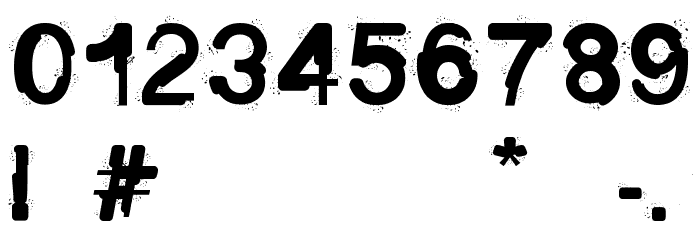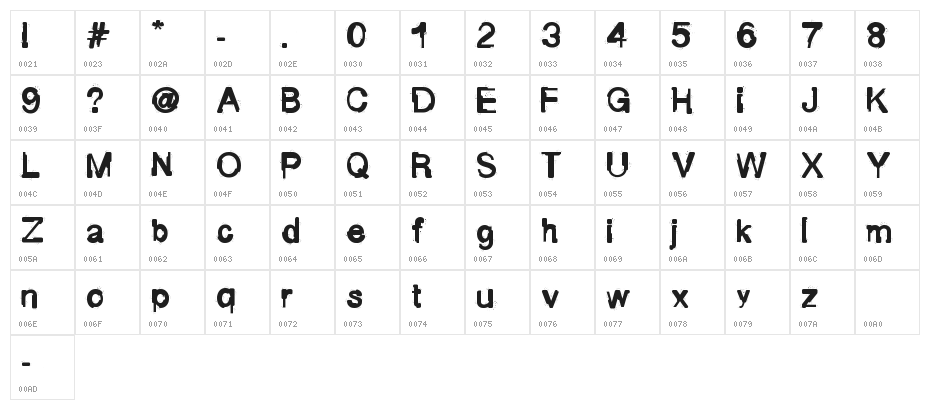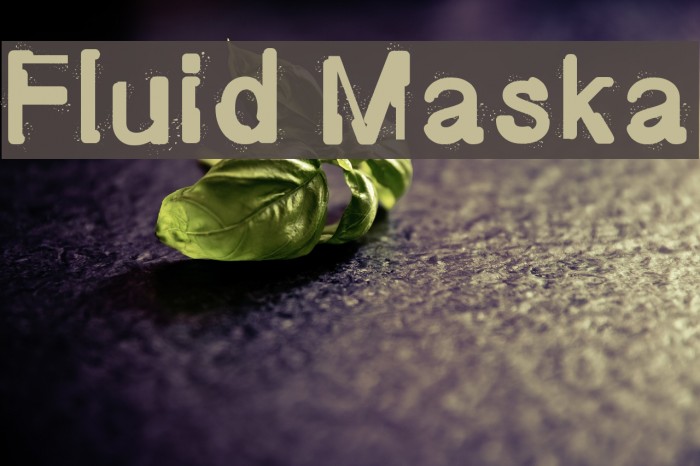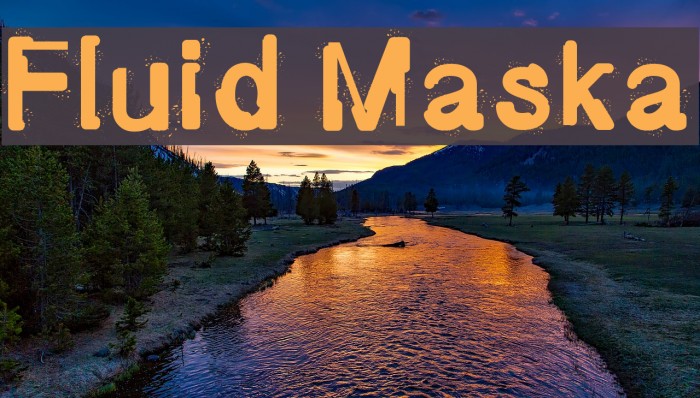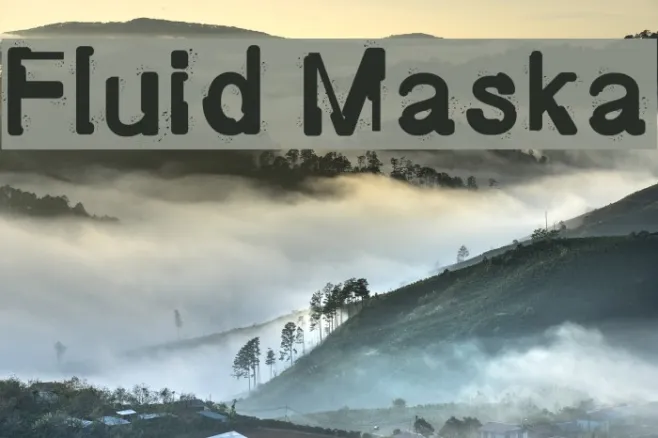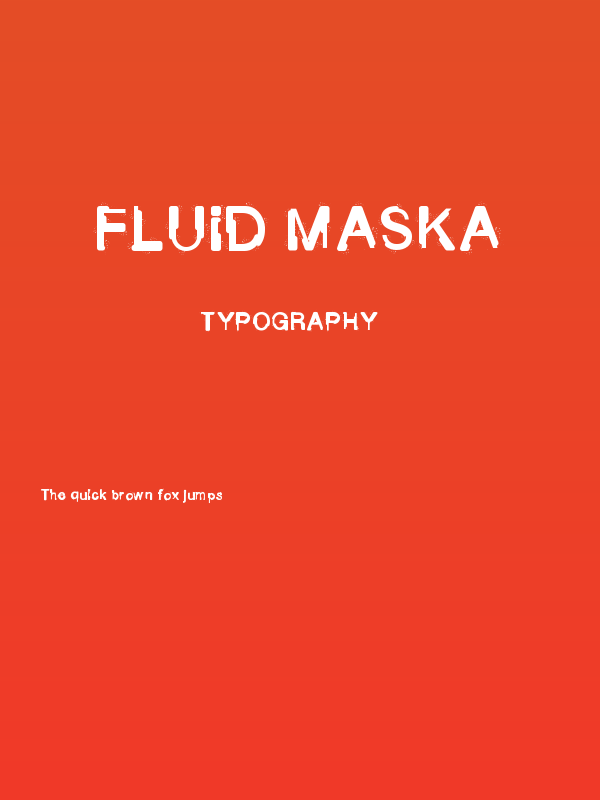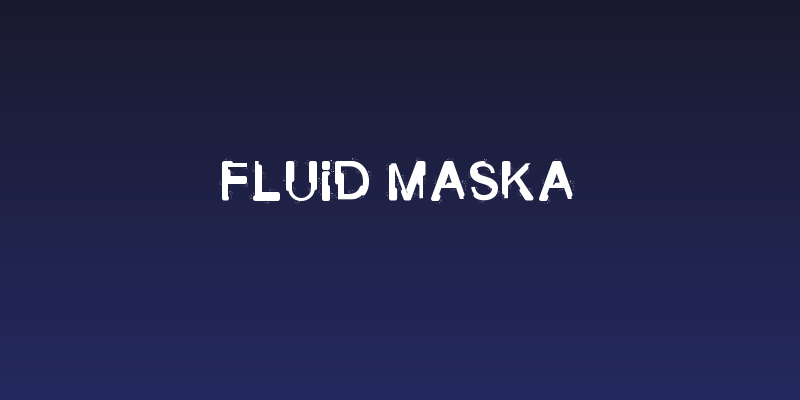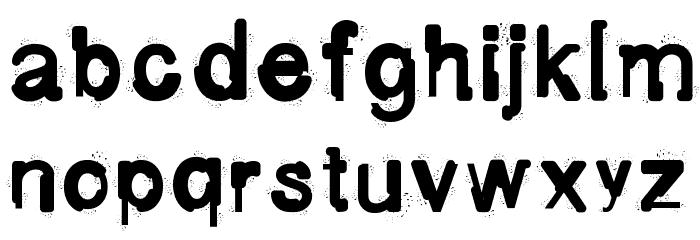
Fluid Maska Font
Fluid Maska Description
This font features a bold and slightly distressed appearance, giving it a unique, textured look. The characters are uppercase and lowercase, with numerals and a selection of special characters. The design includes subtle variations in stroke width, adding to its dynamic and eye-catching style. The overall effect is somewhat industrial and modern, making it suitable for projects that require a strong visual impact. The letters are well-defined, with a slight roughness around the edges, contributing to its distinctive character.
| Proposed Projects | Ideal for posters, album covers, branding, and any design needing a bold statement. |